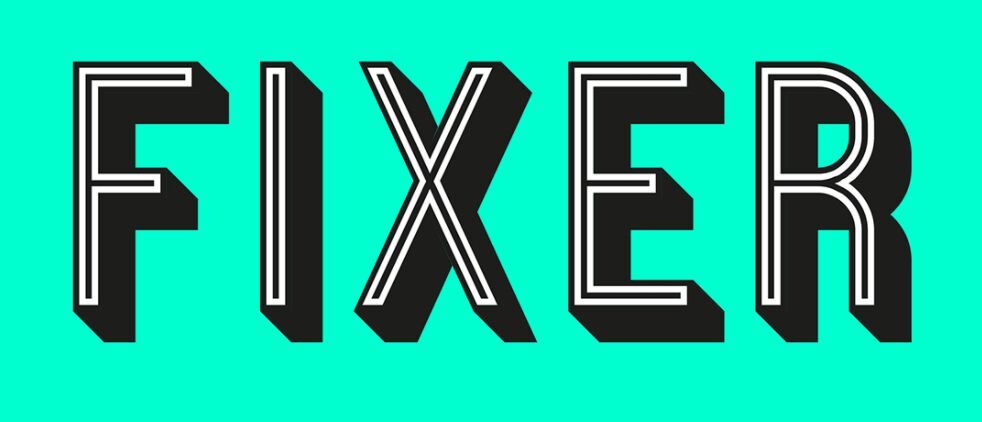
A modern multi-layered font includes Fixer 3D.ttf, Fixer Display Fill.ttf, Fixer Display.ttf, Fixer Inline.ttf, Fixer Line.ttf, Fixer Outline.ttf, and Fixer Regular.ttf.